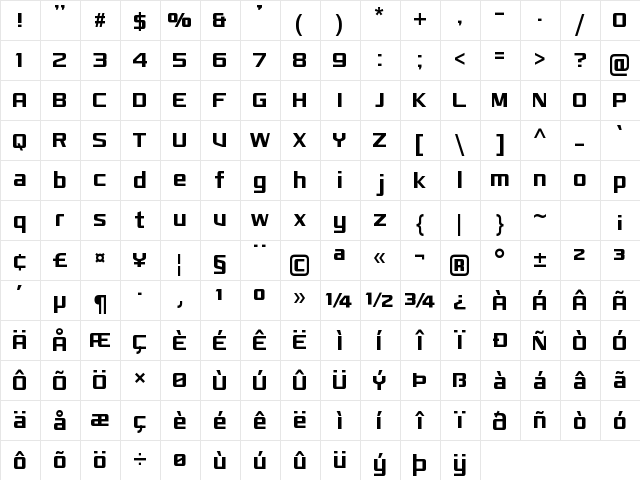
Monkirta Pursuit NC Regular
Design Context for Monkirta Pursuit NC Typeface
Monkirta Pursuit NC offers clean, dependable letterforms without strong stylistic allegiance, making it a practical choice for designers who need flexibility.
Pro Tip: Pair Monkirta Pursuit NC with a font of contrasting weight or personality to build a more expressive typographic hierarchy.